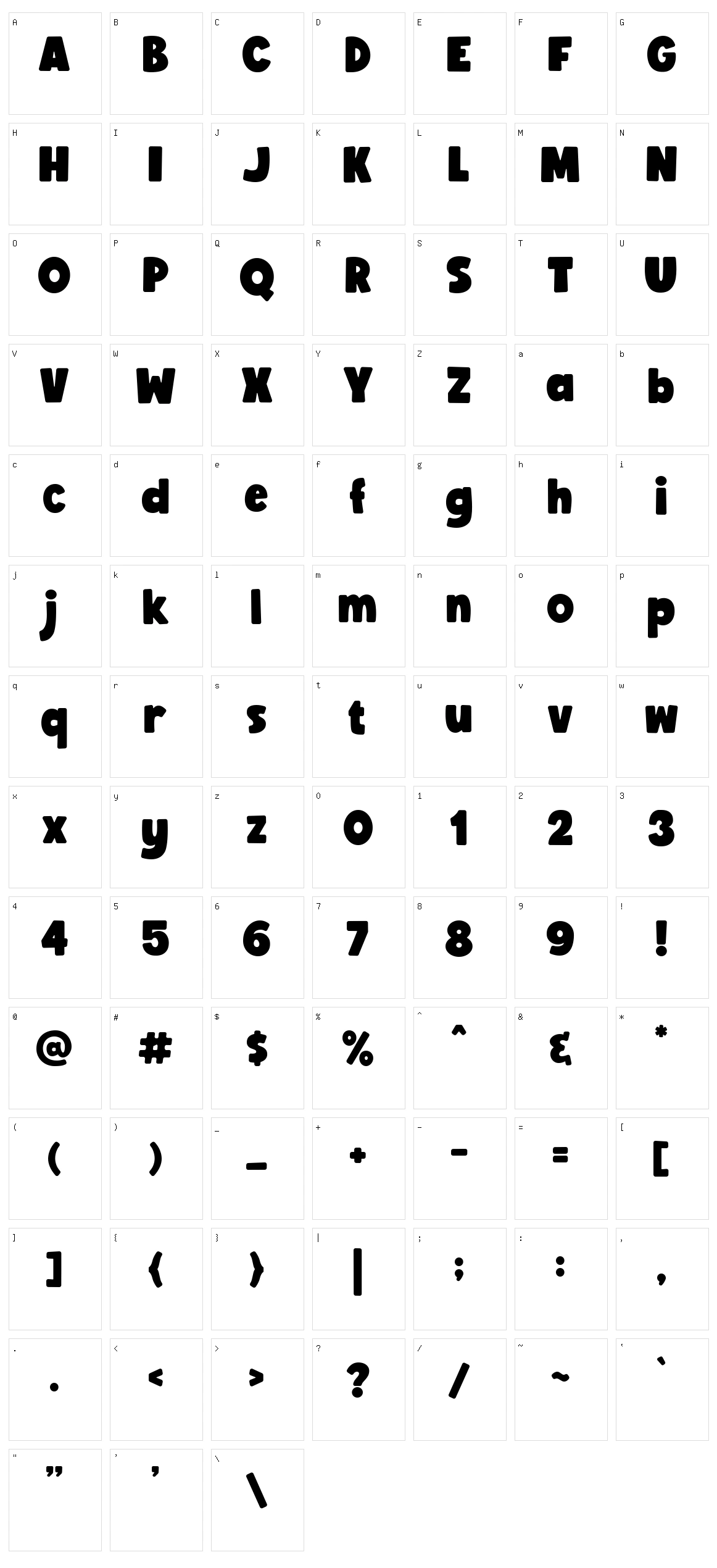
The free font BoldenVan is carefully designed by Alexa, showcasing a thoughtful balance of creativity and usability and falls under the Cartoon font style. When you download the ZIP file, it contains only 30.02 KB of font files, making it lightweight and quick to download. Please review the license details below to understand permitted usage and distribution rights. If license information is not available, we recommend using this font for personal projects only or contacting the author directly for commercial usage permissions.